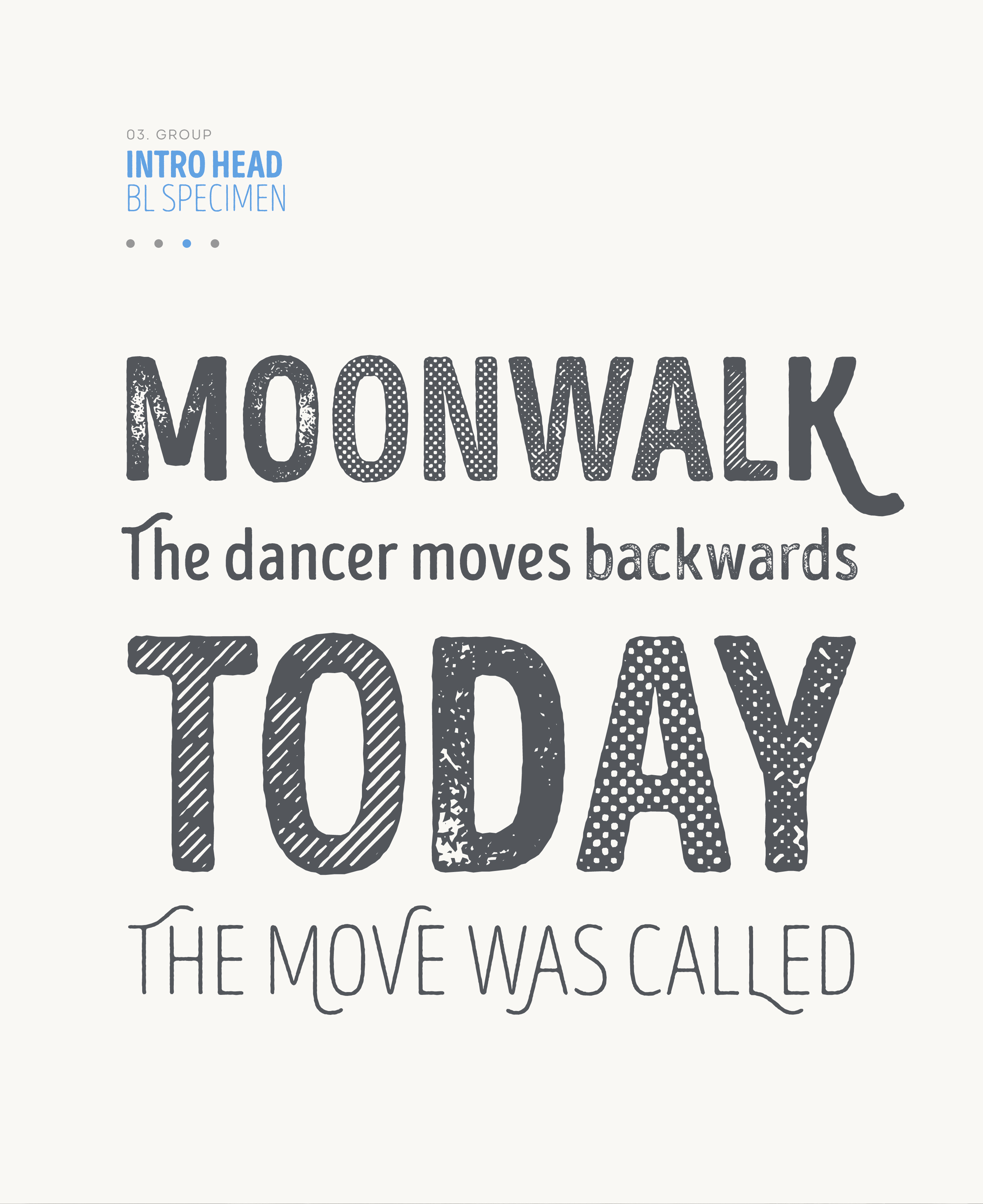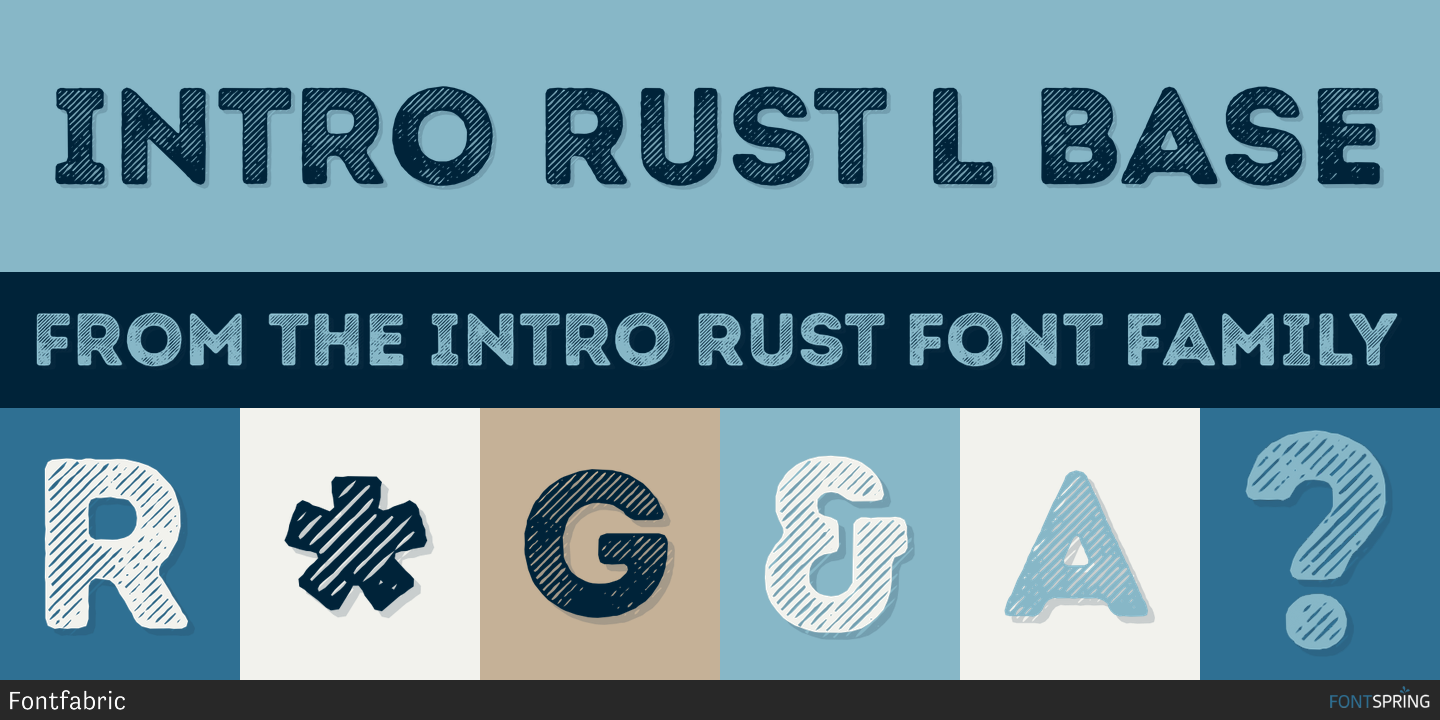
Intro Rust Font. Radomir tinkov, ani petrova, svetoslav simov. Web intro rust script font.
Radomir tinkov, ani petrova, svetoslav simov. The font family is a rough version of the famous intro. Intro rust includes 4 sub. Web intro rust font family. Web intro rust is one of the biggest packages on the market, including 214 fonts. Web intro rust script font. Intro rust designed by fontfabric, this is a premium font, are sold on fontspring, but it was great, it is free today for download.
Radomir tinkov, ani petrova, svetoslav simov. Intro rust includes 4 sub. Web intro rust is one of the biggest packages on the market, including 214 fonts. Web intro rust font family. Radomir tinkov, ani petrova, svetoslav simov. Intro rust designed by fontfabric, this is a premium font, are sold on fontspring, but it was great, it is free today for download. Web intro rust script font. The font family is a rough version of the famous intro.